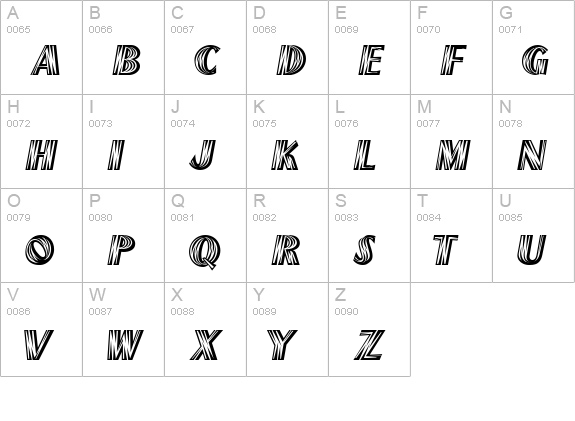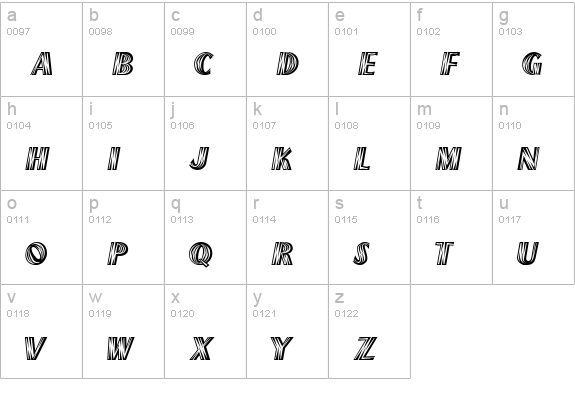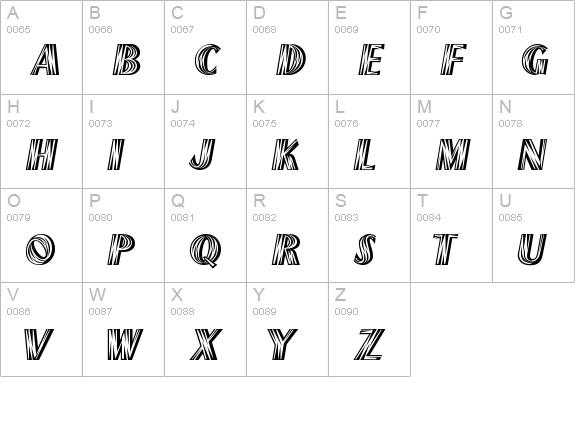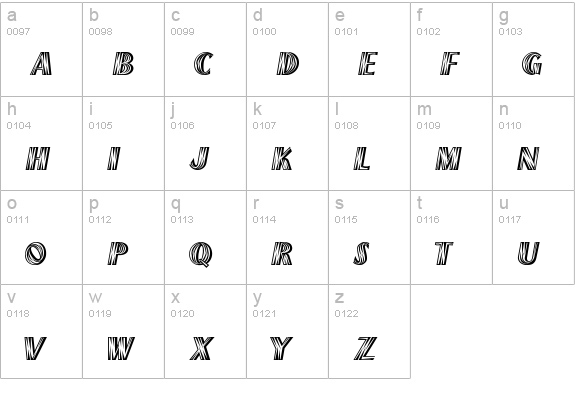
Tex Mex Display SSi Extra Bold Font Details
Tex Mex Display SSi Extra Bold is a strong, high-contrast variant in the Tex typeface family \xE2\x80\x94 well suited to headlines, attention-grabbing titles, and strong calls-to-action.
Tex Mex Display SSi Extra Bold font is a vibrant and bold typeface that captures the essence of Tex-Mex cuisine and culture. With its strong and eye-catching design, this font is perfect for creating attention-grabbing headlines, posters, and advertisements. The extra bold weight of this font adds an extra punch to your designs, making them stand out from the crowd. Whether you're designing a menu for a Tex-Mex restaurant, creating promotional materials for a fiesta, or simply want to add a touch of southwestern flair to your project, Tex Mex Display SSi Extra Bold font is the perfect choice. One of the best things about Tex Mex Display SSi Extra Bold font is that it is available for free download at FontsMarket.com. This means that you can easily and freely access this font and use it in your personal and commercial projects. Whether you're a professional designer or a hobbyist, this font is a valuable addition to your font library. So why wait? Add a dash of Tex-Mex spice to your designs with Tex Mex Display SSi Extra Bold font. Download it for free at FontsMarket.com and let your creativity soar.